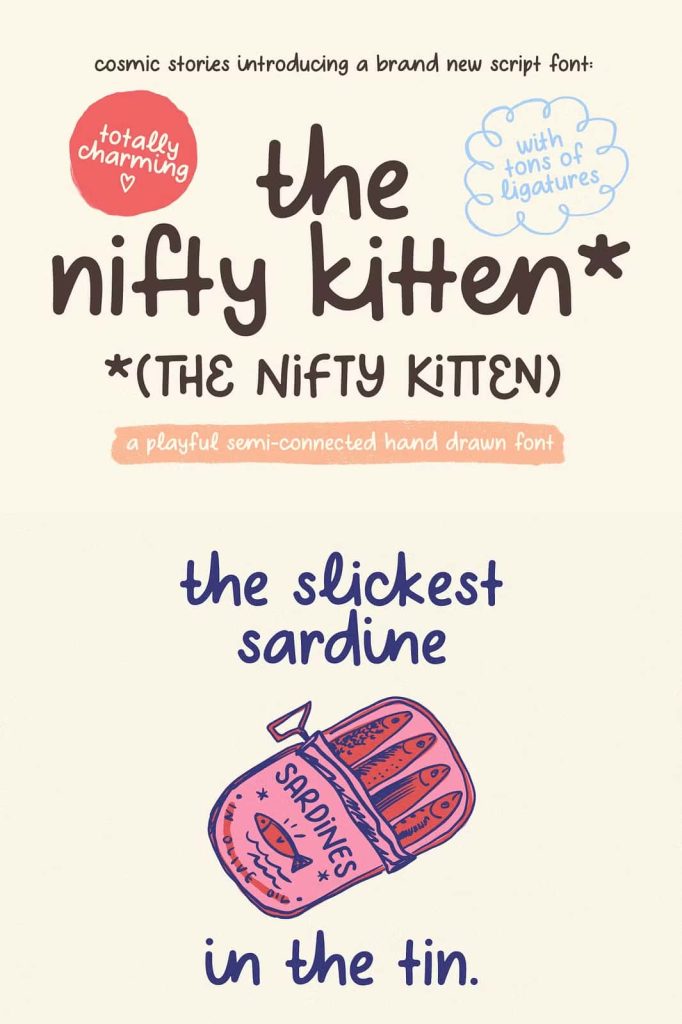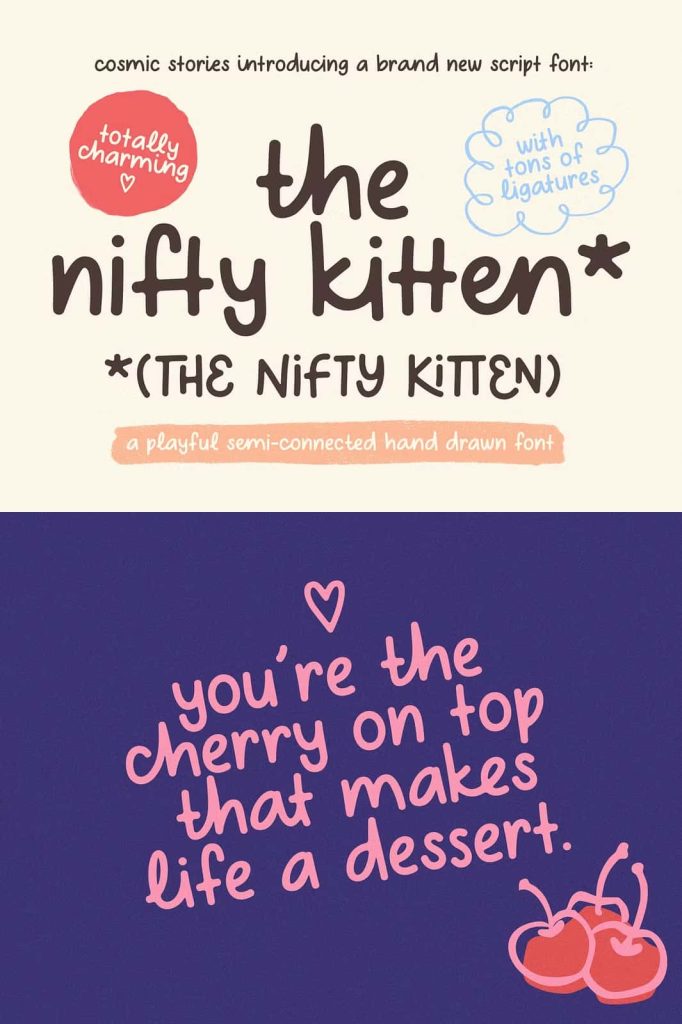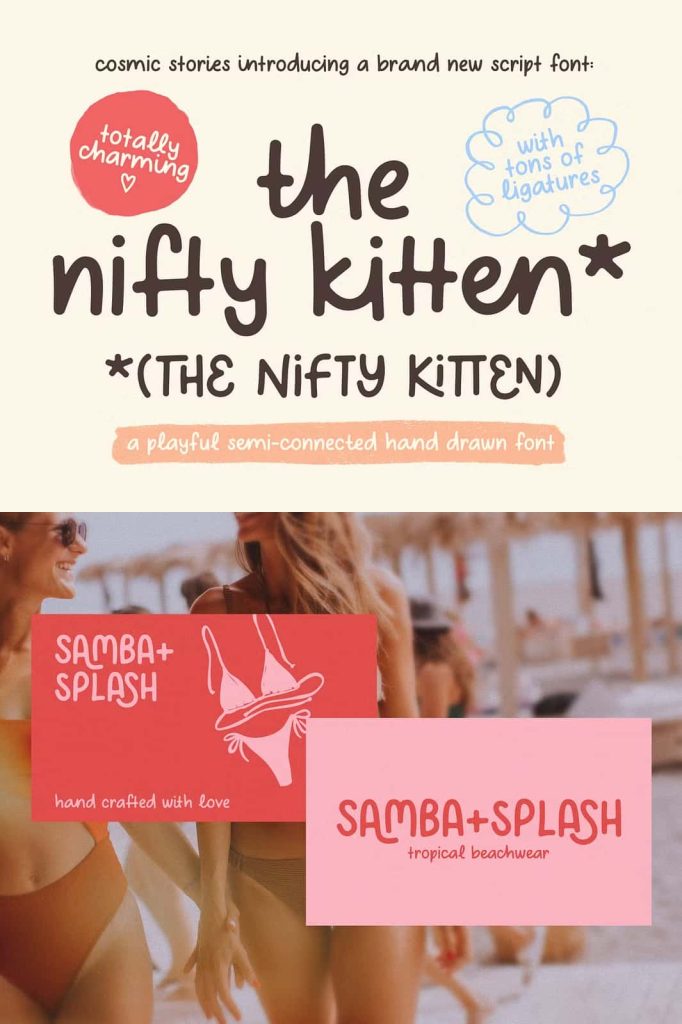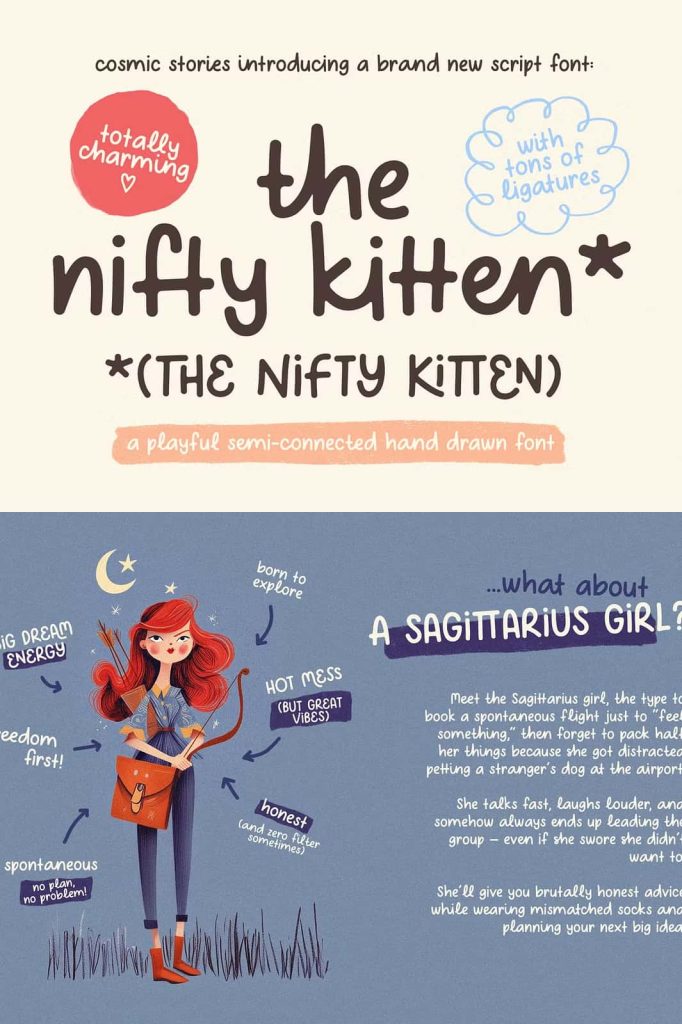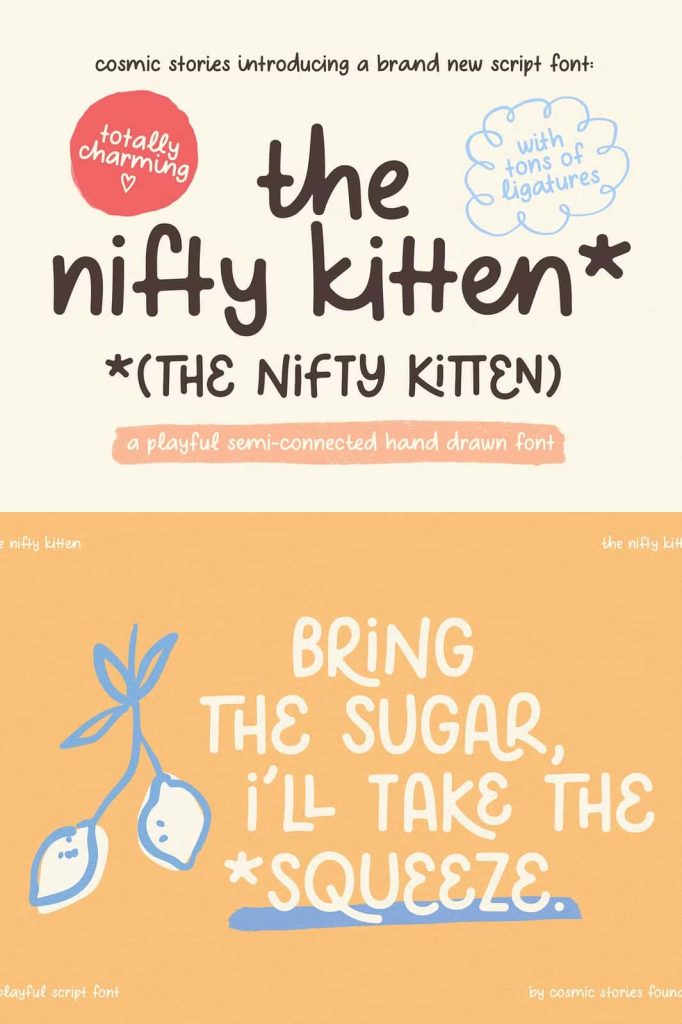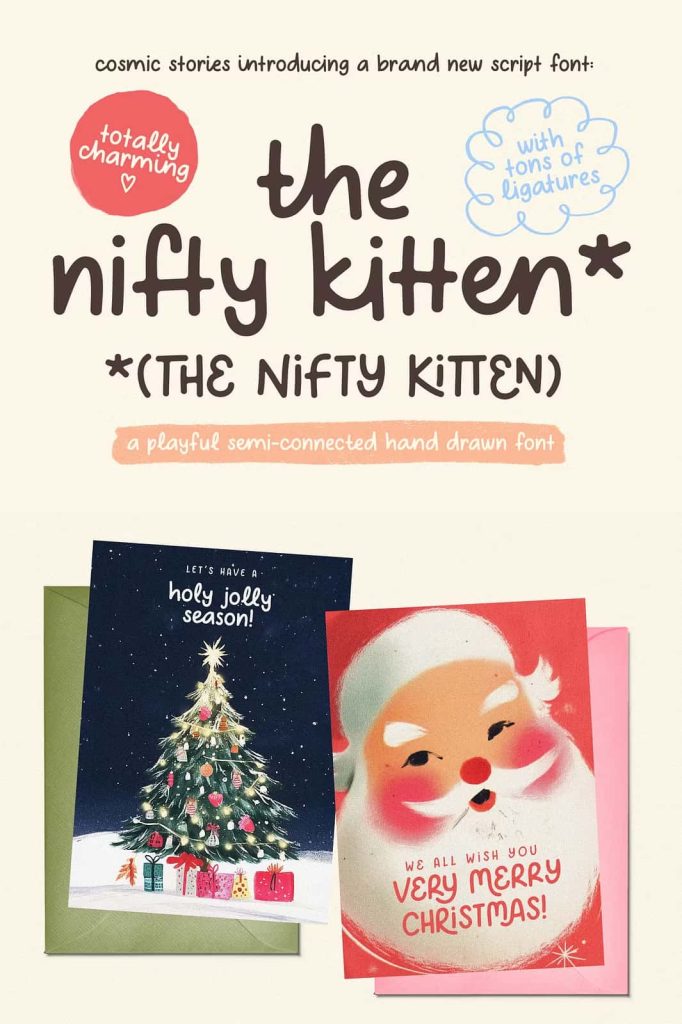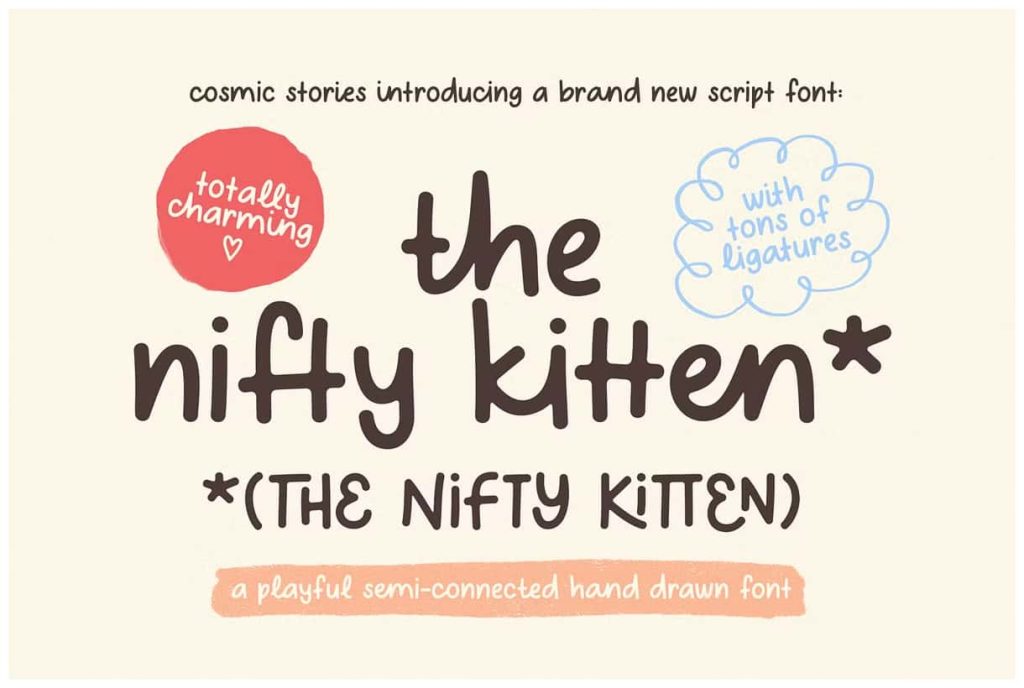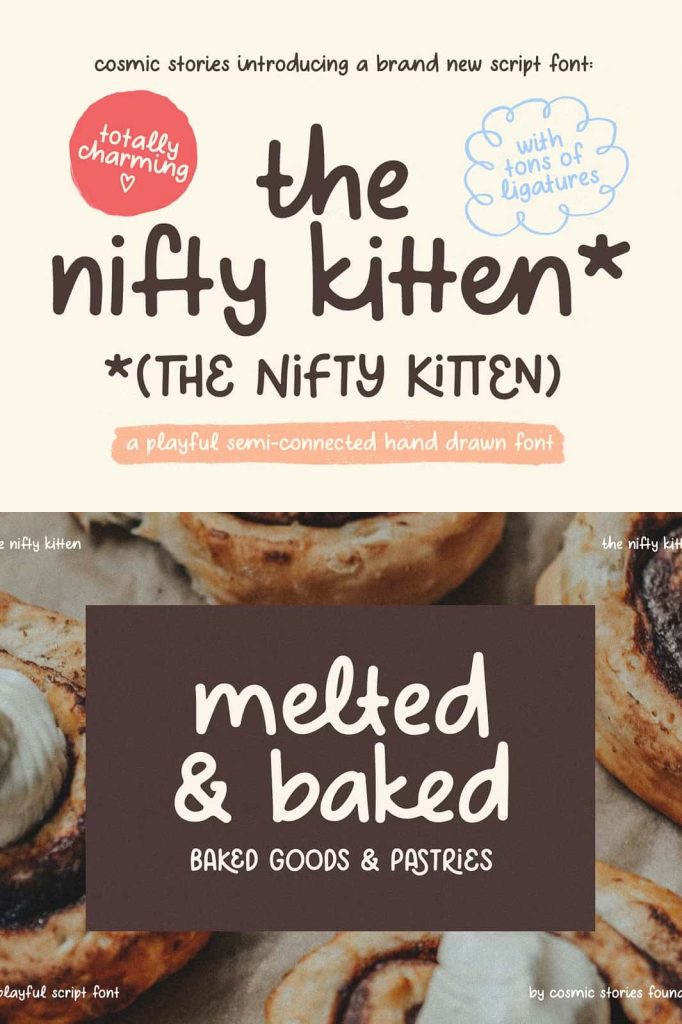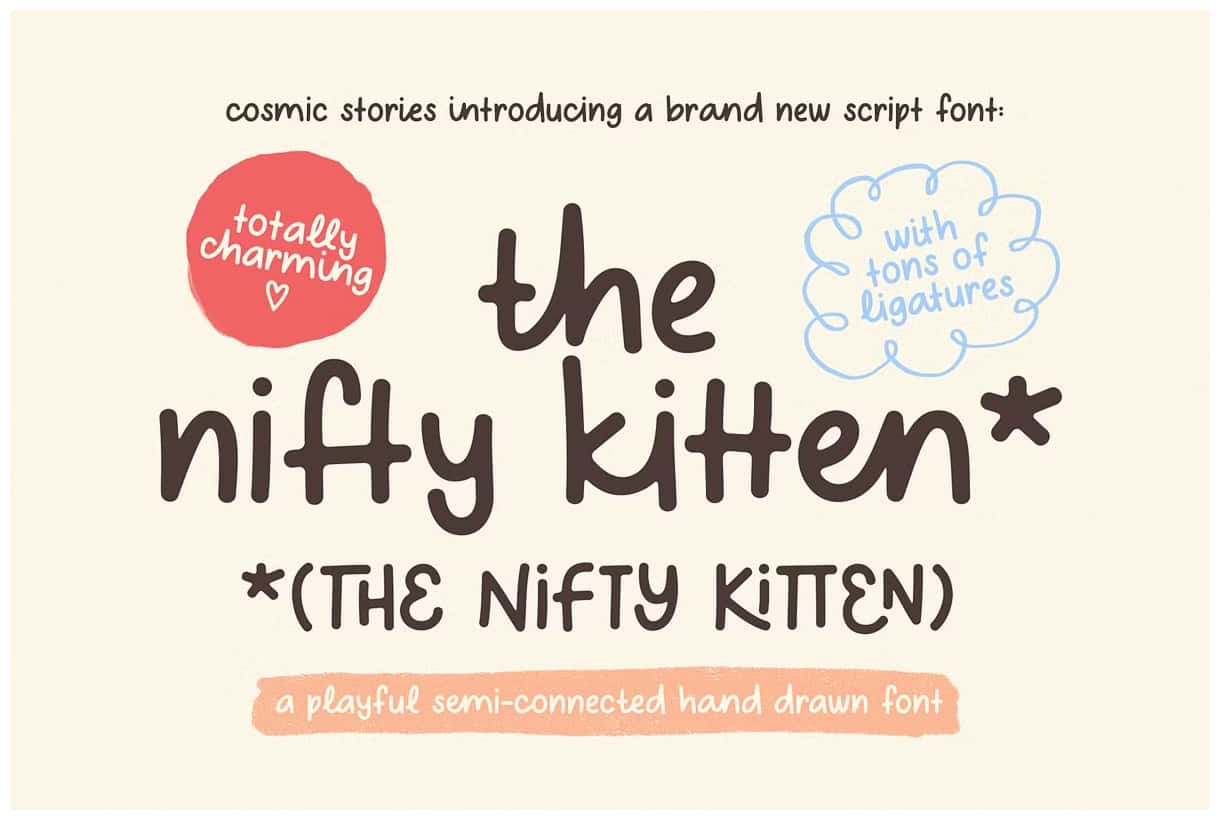
Introducing The Nifty Kitten Script font
A bold, handwritten script font that’s fresh, playful, and full of personality. With its imperfect, handcrafted style, this font is perfect for brands looking to add a unique, artisanal touch to their designs.